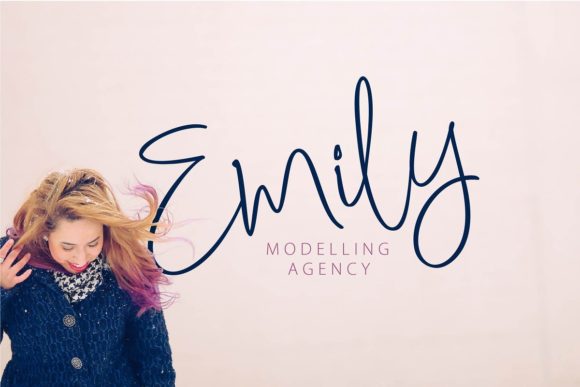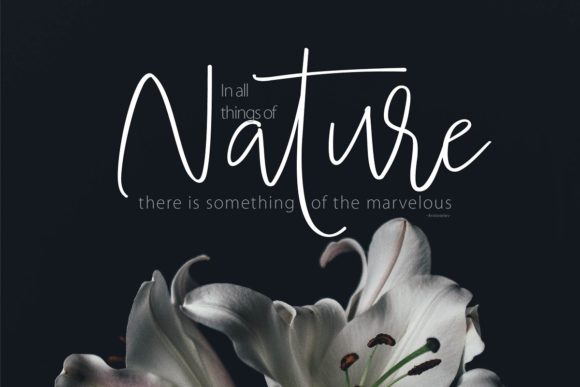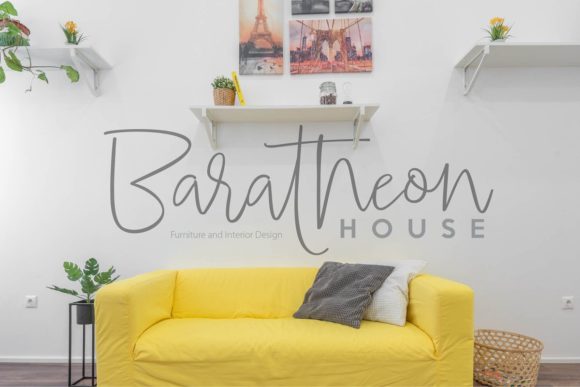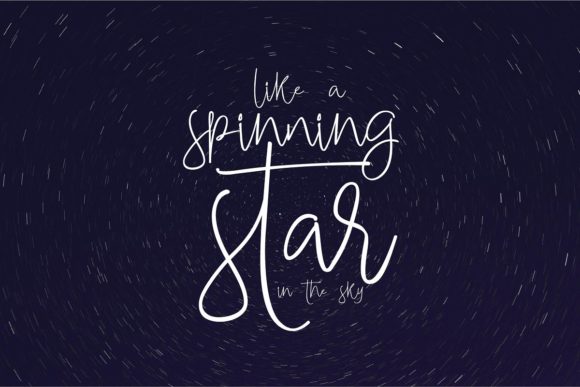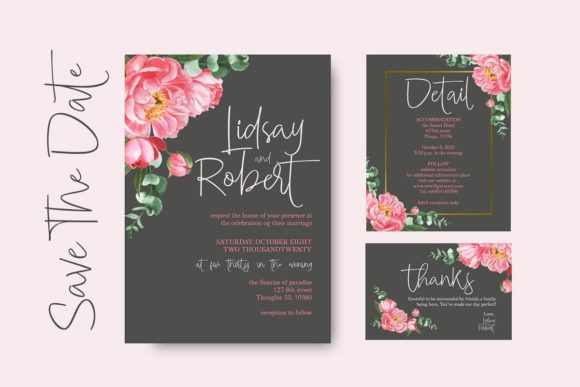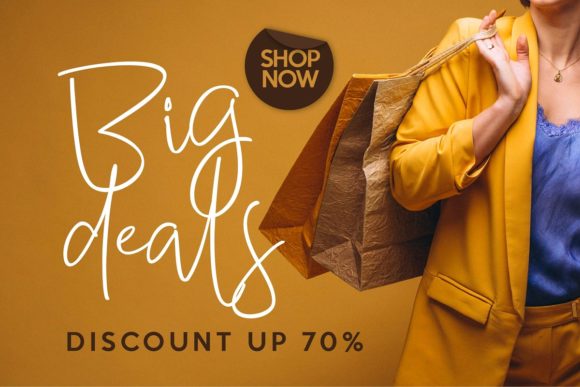
Introduction to Keith Font
Keith feels equally charming and elegant.
This stunning script font is a stylish homage to classic calligraphy It features a varying baseline, smooth lines, gorgeous glyphs and stunning alternate.
Key Features of Keith Font
Why Choose Keith Font?